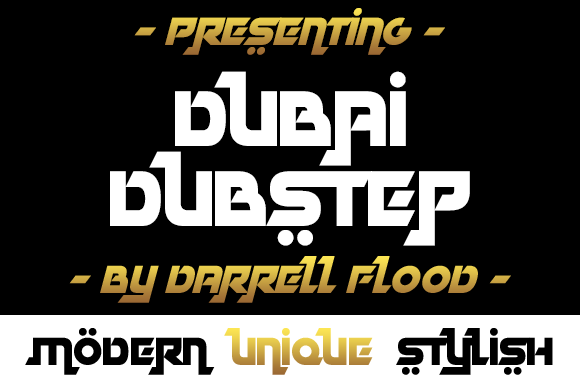
Immerse yourself in a realm of digital innovation with Dubai Dubstep, a display font that pulses with modern Arabic charm. Its intricate lines and captivating curves are meticulously crafted to ignite your tech-inspired designs with a futuristic flair!
Dubai Dubstep’s striking presence captivates the eyes, inviting users to embark on a journey of discovery, exploration, and imagination. Its sharp edges and dynamic strokes create a sense of urgency and excitement, propelling your tech website to the forefront of innovation.
Unleash your creativity and let your tech-themed vision soar with Dubai Dubstep. Picture sleek gadget reviews, cutting-edge software launches, and groundbreaking tech news articles adorned with this mesmerizing font. Its unique Arabic style adds a touch of intrigue and sophistication, setting your website apart from the mundane.
Dubai Dubstep is a font that speaks the language of the future, effortlessly complementing your tech-savvy audience. Its striking appearance commands attention, making your website an irresistible destination for tech enthusiasts seeking the latest innovations.
Don’t settle for ordinary fonts that blend into the background. Embrace the power of Dubai Dubstep and watch as your tech website transforms into a dynamic hub of engagement and inspiration. Let your words dance across the screen in a symphony of innovation, leaving a lasting impression on every visitor.
Whether you’re a tech blogger, software developer, or digital marketer, Dubai Dubstep is your font of choice. Its versatility extends beyond tech websites, effortlessly adapting to science and action themes that crave a futuristic Arabic touch.
Experience the captivating synergy of Dubai Dubstep today and elevate your tech website to new heights of excellence. As you witness the remarkable impact it has on your online presence, you’ll realize that Dubai Dubstep is more than just a font – it’s a catalyst for innovation, a gateway to the future of digital design.